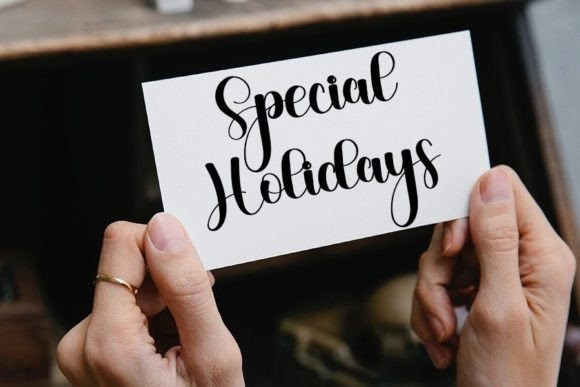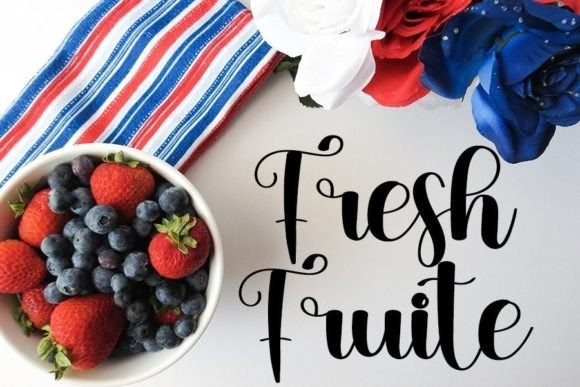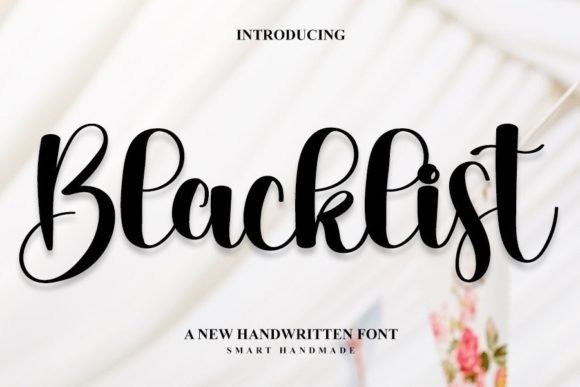
Blacklist Font
Blacklist Font is a stylish handwritten font with a contemporary atmosphere and impeccable form, inspired by a timeless classic calligraphy. Balanced and varied, this font was designed to enhance the beauty of your projects.